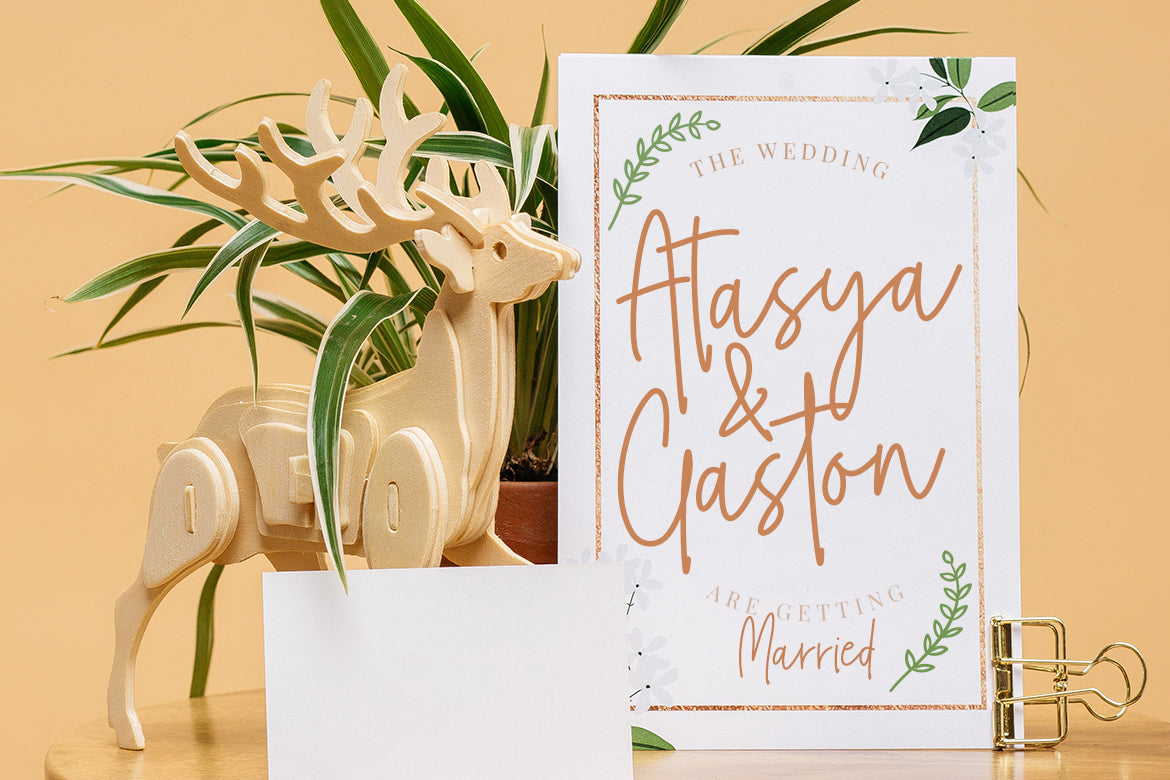
The Gwathmey - Free Signature Script Font
Today we're glad to feature this The Gwathmey - Free Signature Script Font. This is a downloadable free font file brought to you by Crella. You can create a professional designs with this beautiful font.